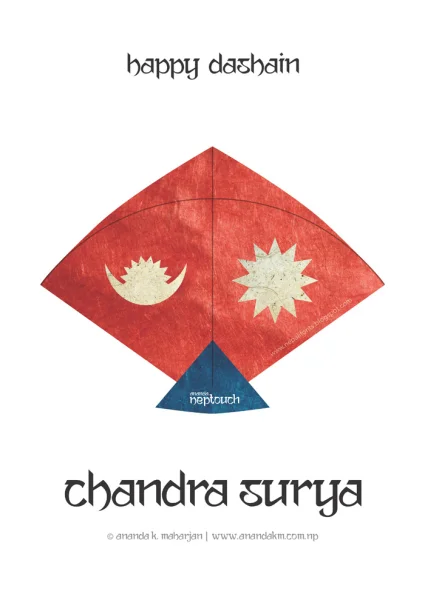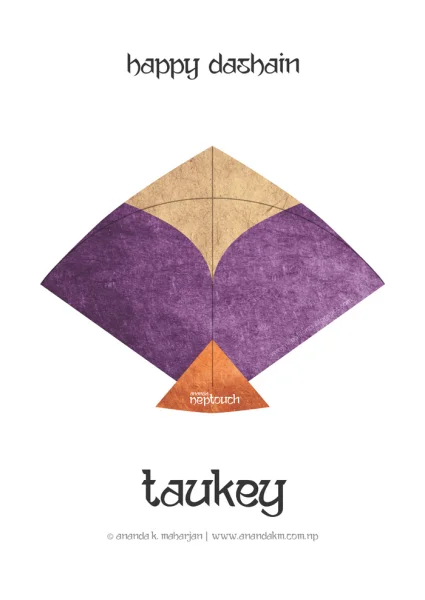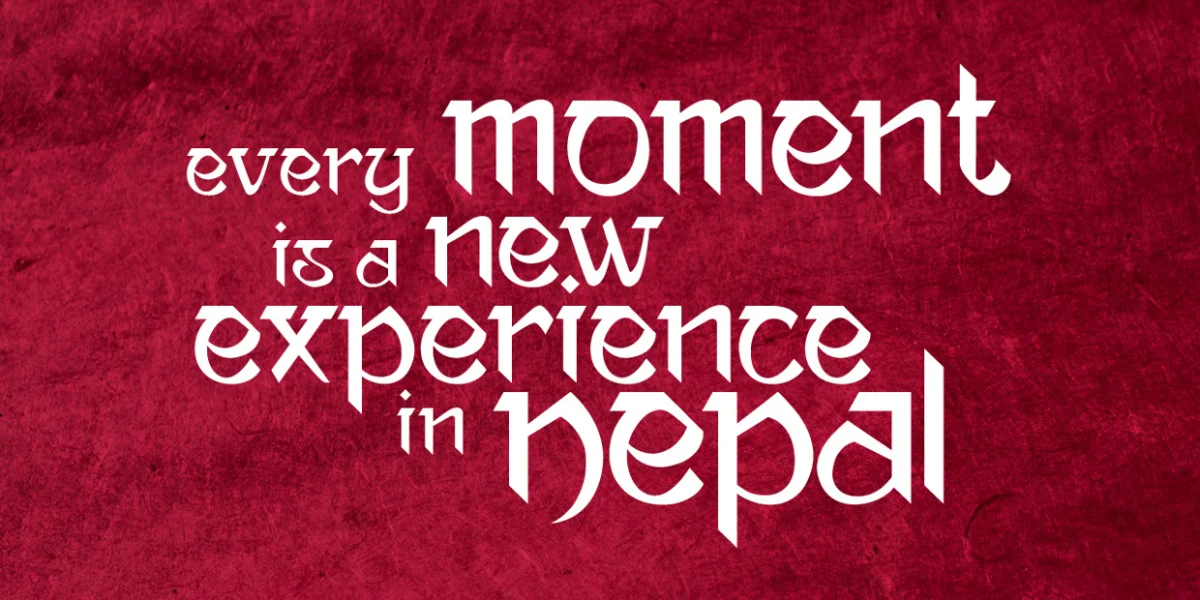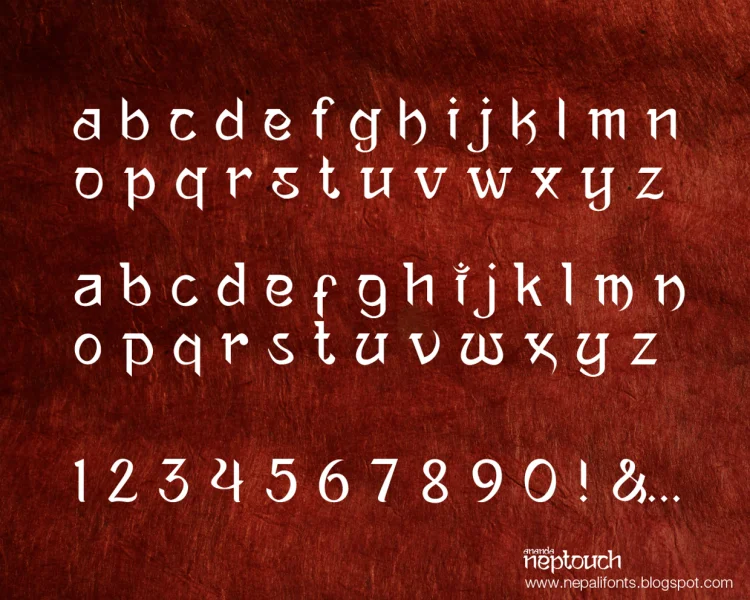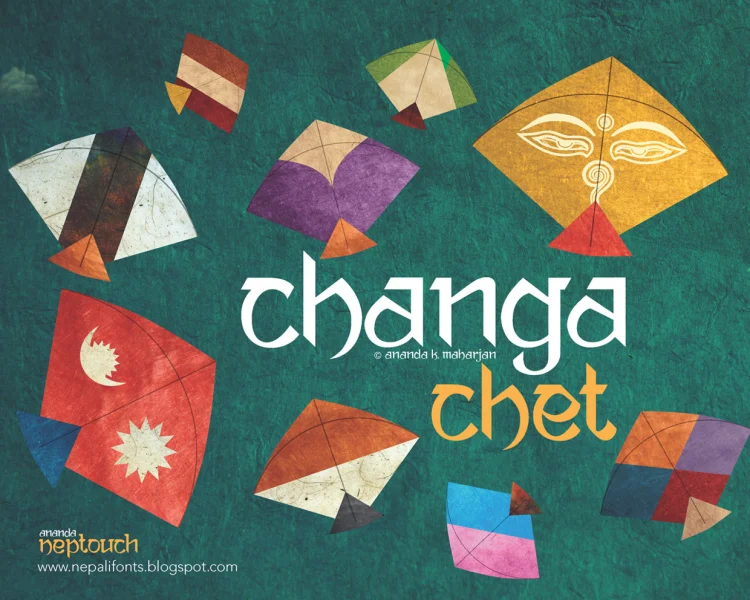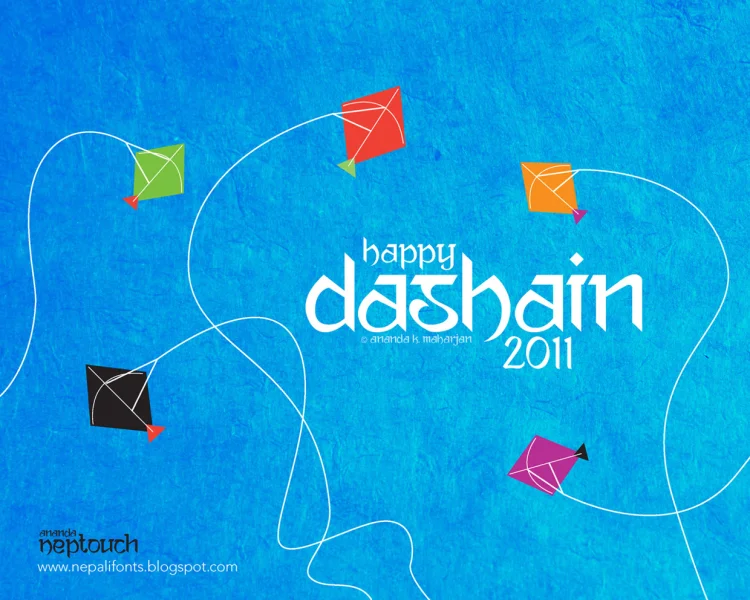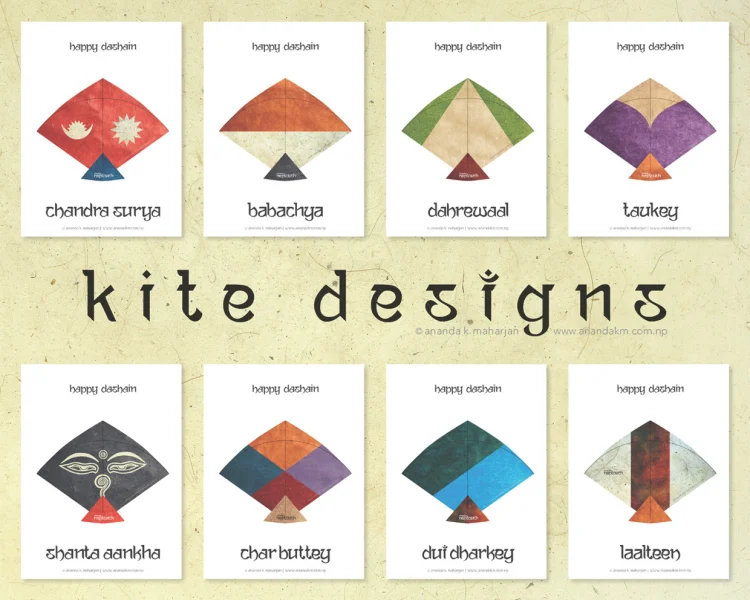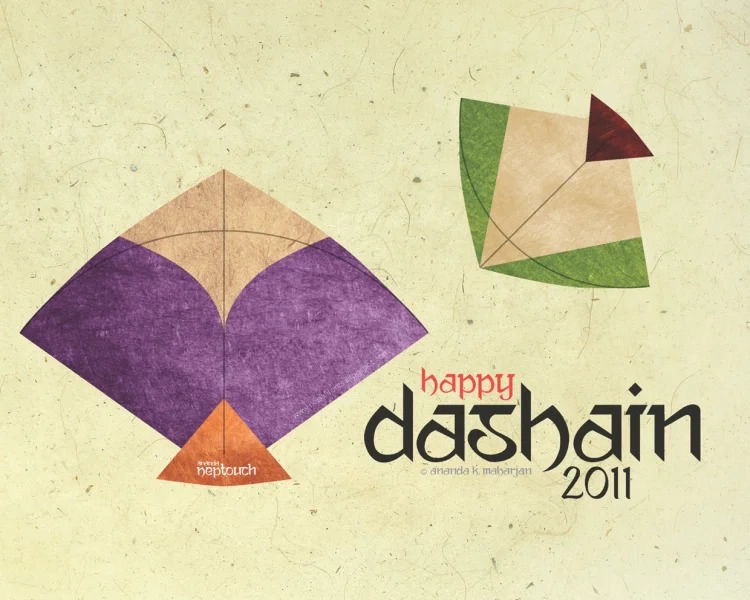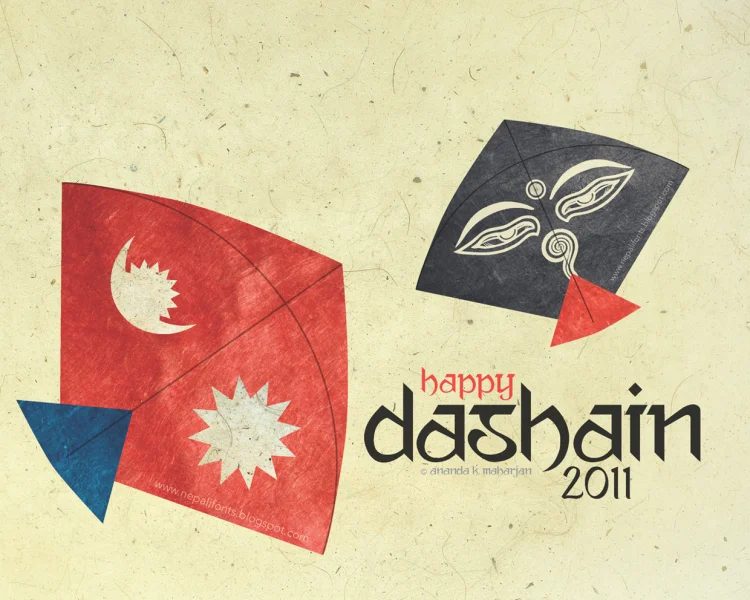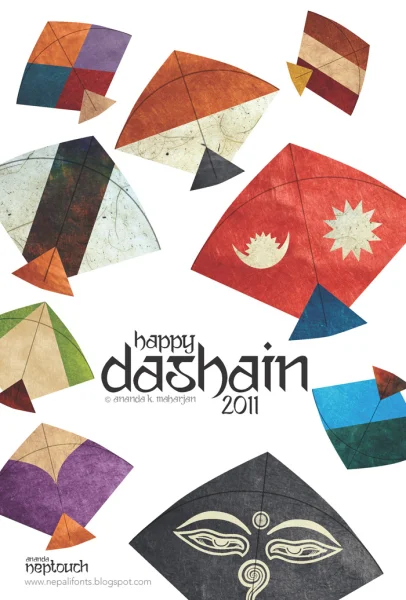
Ananda Neptouch 2 is imitation of Nepali Devanagari Script. Inspired by various nepali typography. Buy a commercial license at www.hellofont.com/fonts/104?a=v1.